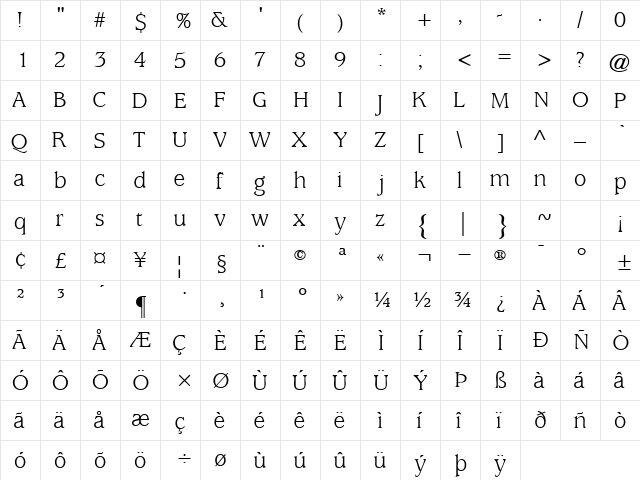
ExpositionSSK Regular
Design Context for ExpositionSSK Typeface
ExpositionSSK is a composed and adaptable typeface that performs quietly and consistently across a wide range of design contexts.